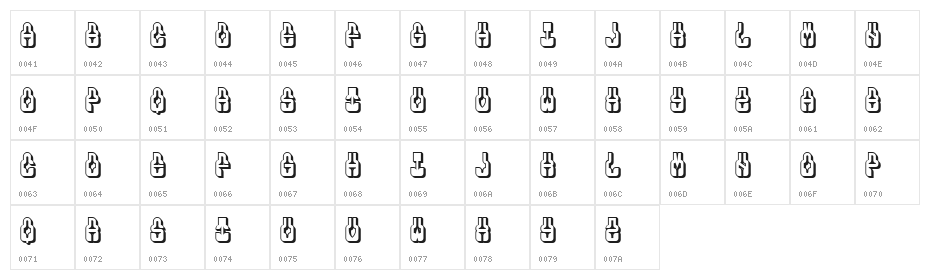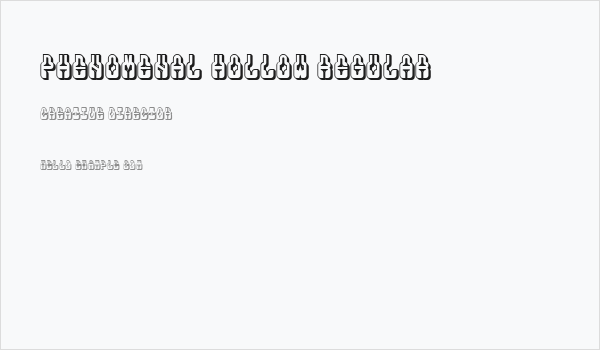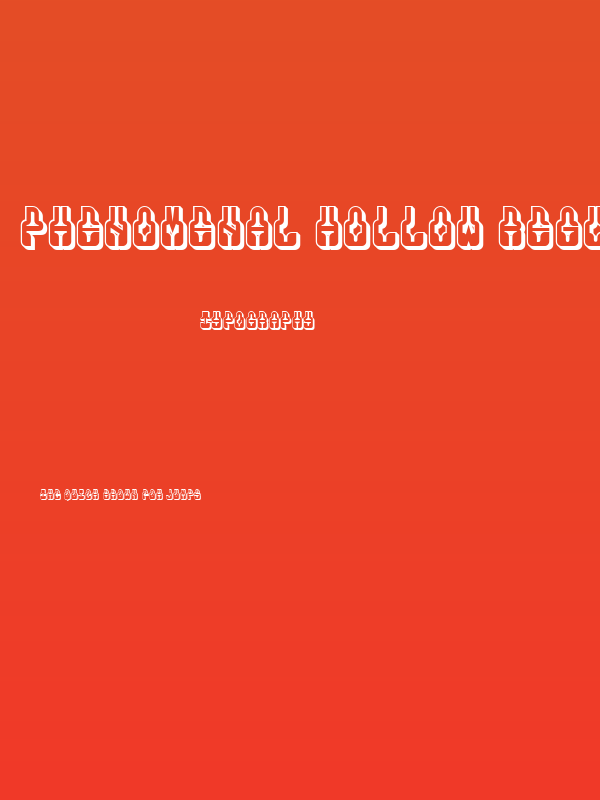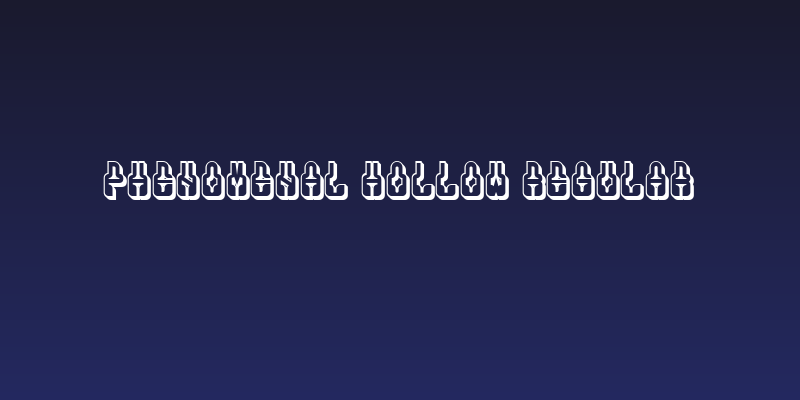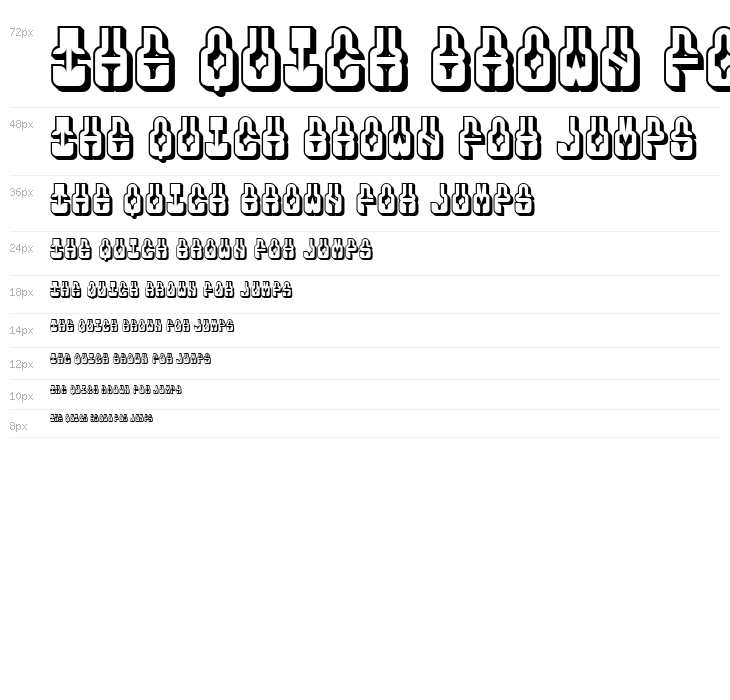
Phenomenal Hollow Regular Font
Phenomenal Hollow Regular Description
This font features a bold, hollow design with a distinct three-dimensional appearance. Each character is outlined with a thick black border, creating a strong visual impact. The interior of the letters is hollow, giving them a unique, modern look. The geometric shapes and consistent line thickness contribute to a cohesive and striking style. This font is highly decorative and stands out due to its boldness and the interplay of positive and negative space. It is suitable for projects that require a strong visual presence and a contemporary aesthetic.
| Proposed Projects | Ideal for posters, logos, headlines, and any design that requires a bold and modern statement. |